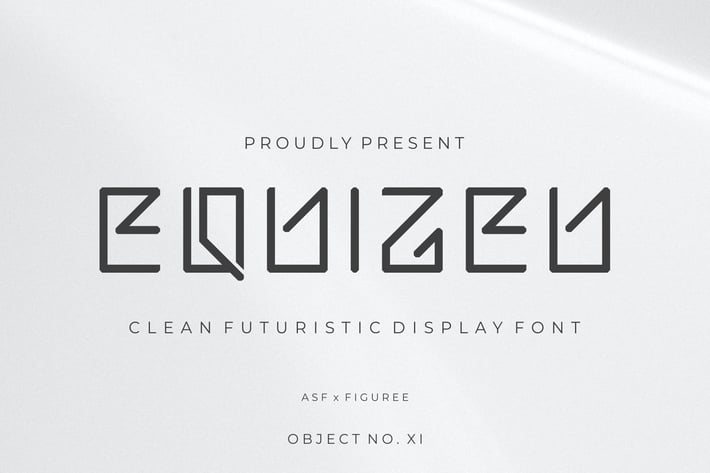
Equizeu - Clean Futuristic Font
Equizeu is a clean futuristic font that carries uppercase characters with a set of numbers that showcase a futuristic unique design in addition to galactic alternates. Take a trip through time and use it for movie posters set in space or in the future. Very suitable for sci-fi enthusiasts, create cards and personalized artwork, but don’t let the adventure stop with you. Use Equizeu for UX and UI projects and allow the rest of the world to get a glimpse of what the future may hold.